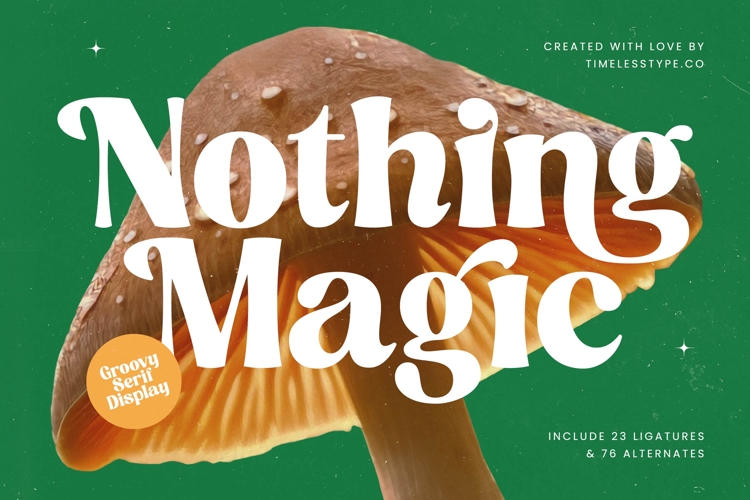
Nothing Magic - Groovy Serif Display
Nothing Magic is a groovy serif display font that blends retro charm with modern boldness, creating a typeface full of personality and creativity. Its playful serifs, chunky strokes, and smooth curves give it a vibrant rhythm that feels both nostalgic and fresh. Equipped with 23 ligatures and 76 alternates, Nothing Magic provides endless stylistic combinations, ensuring typography remains dynamic and expressive. With its groovy yet elegant design, this font is crafted for projects that want to stand out with character, fun, and style.
This font thrives in headline typography, where its bold curves and unique alternates instantly catch attention across posters, banners, and editorials. In branding and logo design, Nothing Magic communicates creativity and originality, making it ideal for fashion labels, music brands, lifestyle businesses, and artisanal products. Its retro-inspired charm also makes it highly effective in packaging design, especially for beverages, food, or handmade goods, where playful yet refined typography enhances visual appeal.
Nothing Magic also shines in advertising campaigns, event posters, and promotional flyers, where its groovy ligatures add flair and make every composition memorable. In social media graphics and digital content, the font amplifies bold messages, giving designs a youthful, stylish, and approachable feel.
Its versatility extends into editorial layouts, creative merchandise, and lifestyle branding, where the blend of groovy forms and modern serif structure ensures timeless impact. With multilingual support, Nothing Magic adapts seamlessly to global projects, making it a practical and expressive tool for international use.
Ultimately, Nothing Magic is more than just a retro serif—it is a design companion for bold, playful, and stylish storytelling. Whether used in headlines, branding, packaging, advertising, or digital media, it ensures every design radiates charm, energy, and unforgettable character.